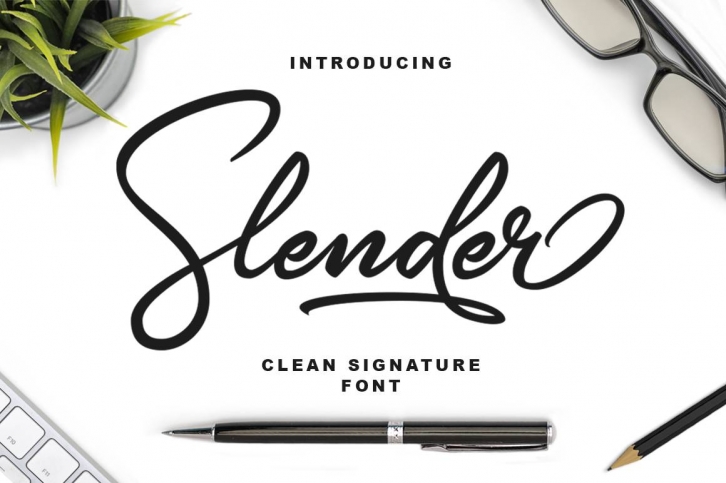
Slender Signature is a trendy and unique font with an authentic style. It was designed by Blankids and it's a great choice for creative people who need such a font. It was released on September 11, 2017 and the file size is 11.50 MB. Slender Signature will add an organic vibe to any design idea!